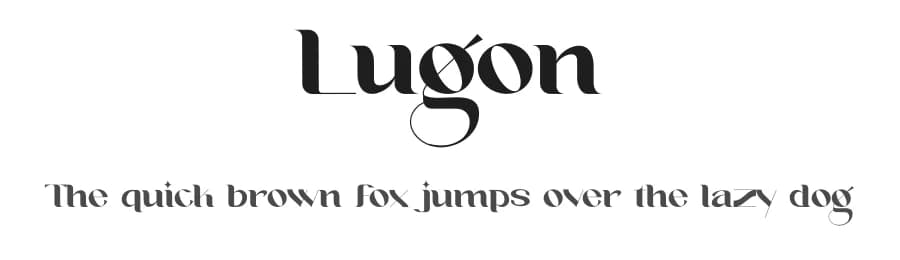
About Lugon Font
Lugon Font is a versatile sans-serif font that works for both headings and body text. Pair it with a contrasting serif or slab serif font to add visual interest and a clear distinction between titles and body copy.
Lugon Font